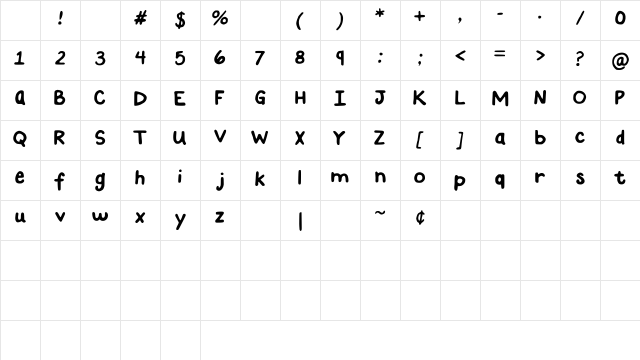
Complete YouAreJustMyType Medium glyph index. Displaying only characters natively supported by YouAreJustMyType Medium font.
YouAreJustMyType is a composed and adaptable typeface that performs quietly and consistently across a wide range of design contexts.